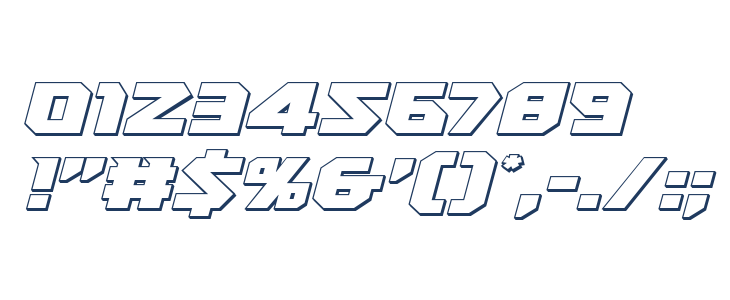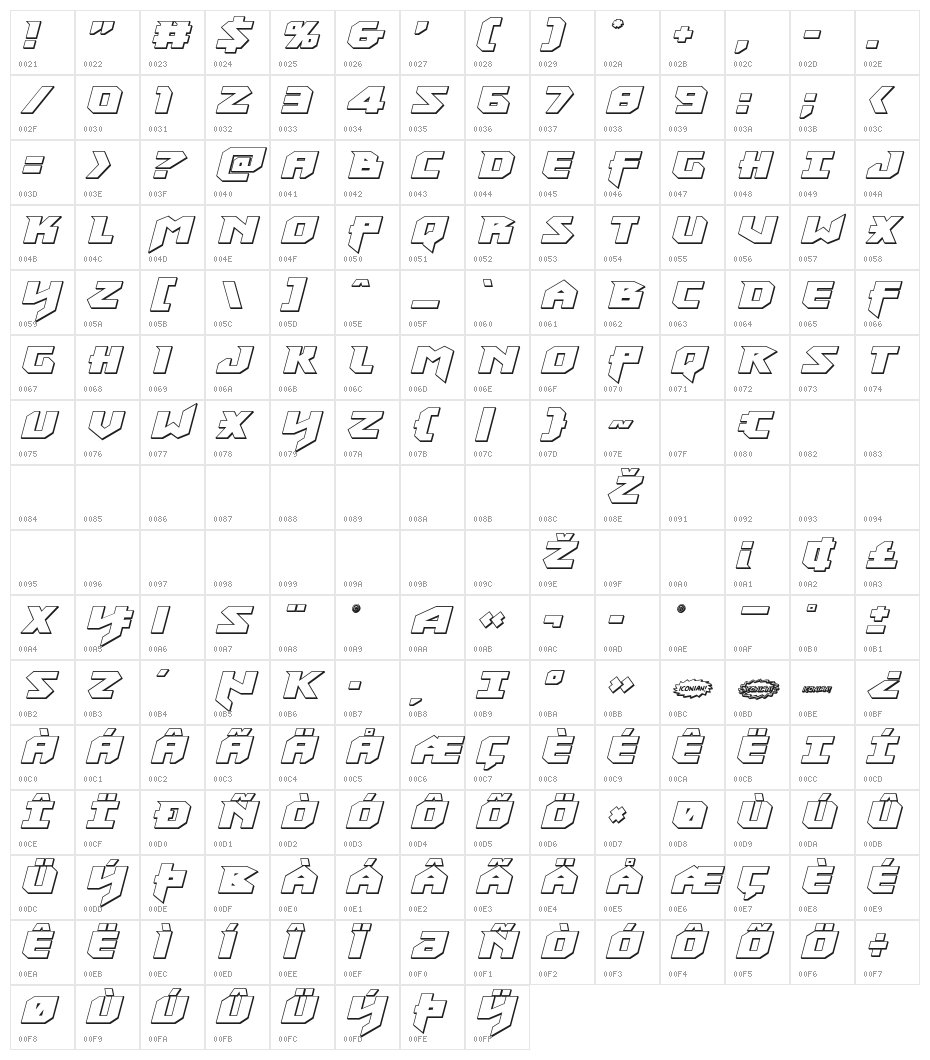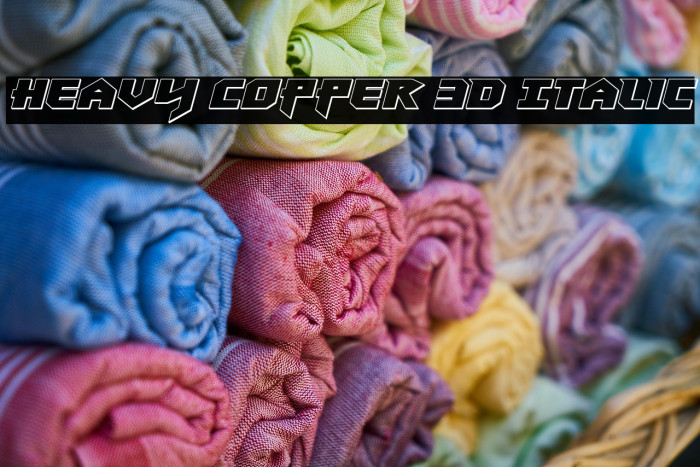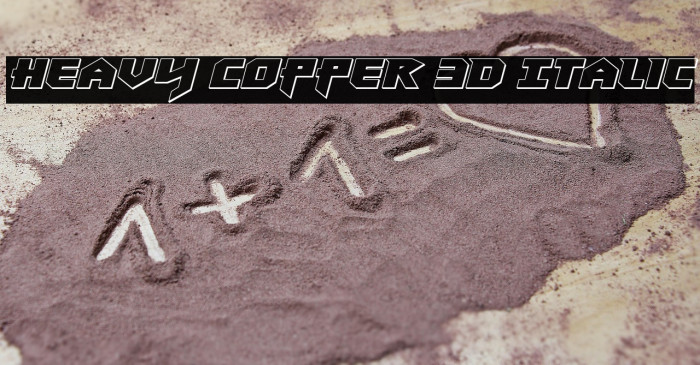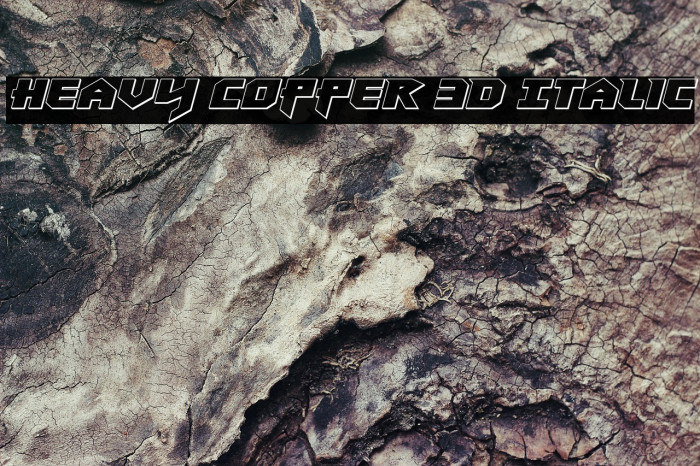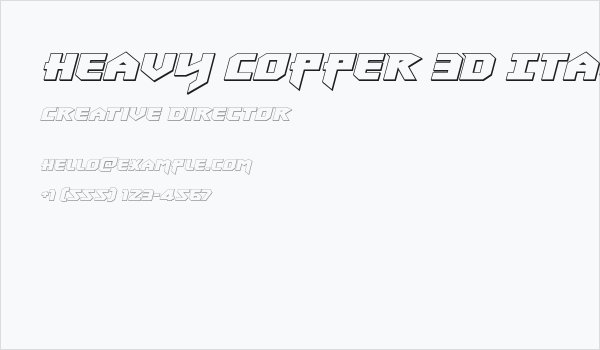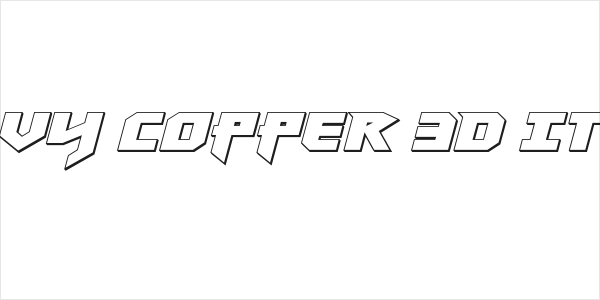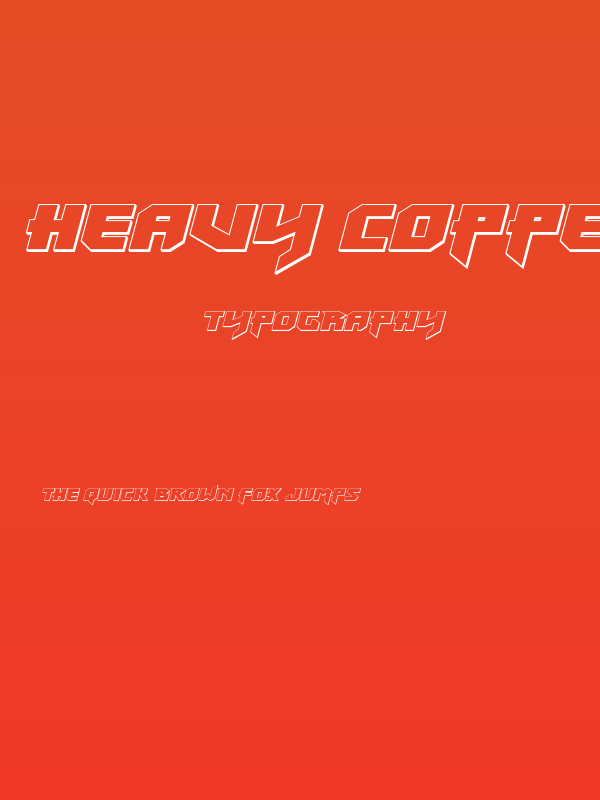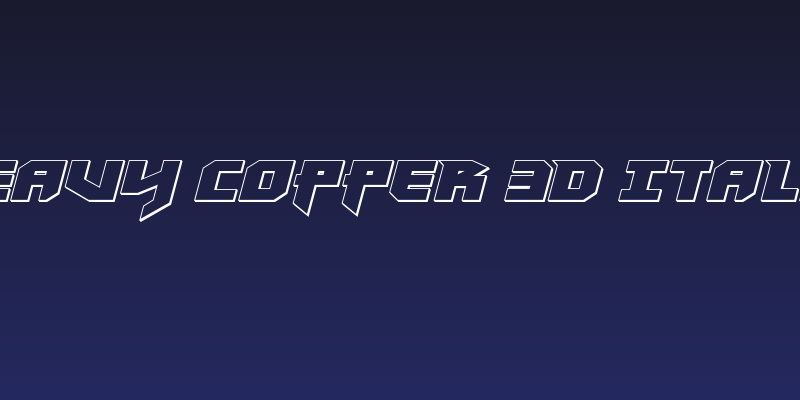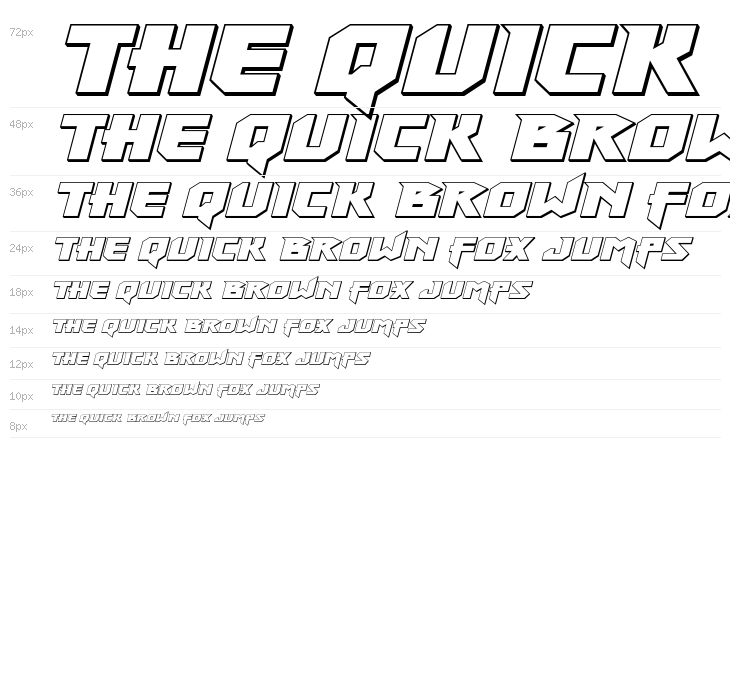
Heavy Copper 3D Italic Font
Heavy Copper 3D Italic Description
This font features a bold, angular design with a distinct 3D effect, giving each character a dynamic and impactful appearance. The italicized style adds a sense of motion and energy, making it ideal for attention-grabbing headlines or titles. The characters are outlined, enhancing the three-dimensional look and providing a unique visual depth. The uppercase and lowercase letters maintain a consistent style, with sharp edges and geometric shapes. Numbers and special characters are designed to match the overall aesthetic, ensuring a cohesive look across all text elements.
| Proposed Projects | Ideal for video game titles, movie posters, or any project requiring a futuristic and bold aesthetic. |